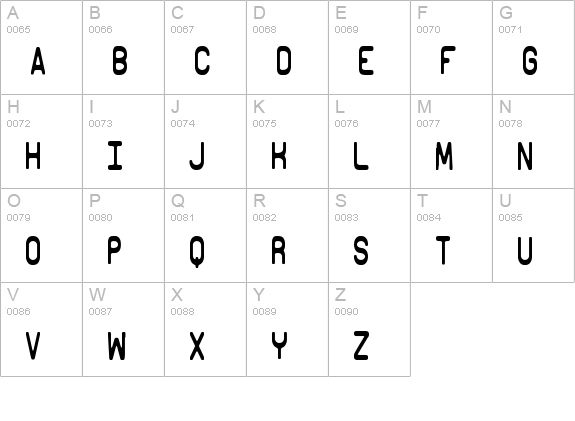
Elsewhere 2 BRK Font Details
Elsewhere 2 BRK font is a unique and stylish typeface that will add a touch of modernity to your designs. With its bold and eye-catching appearance, this font is perfect for headlines, posters, logos, and more. The sleek and futuristic look of Elsewhere 2 BRK will make your projects stand out from the crowd. Best of all, Elsewhere 2 BRK font is completely free to download at FontsMarket.com. This means you can easily access this versatile and dynamic font without any cost. Whether you're a professional designer or just looking to add a fresh look to your personal projects, Elsewhere 2 BRK font is a fantastic choice. Download it today and start creating stunning designs with ease.